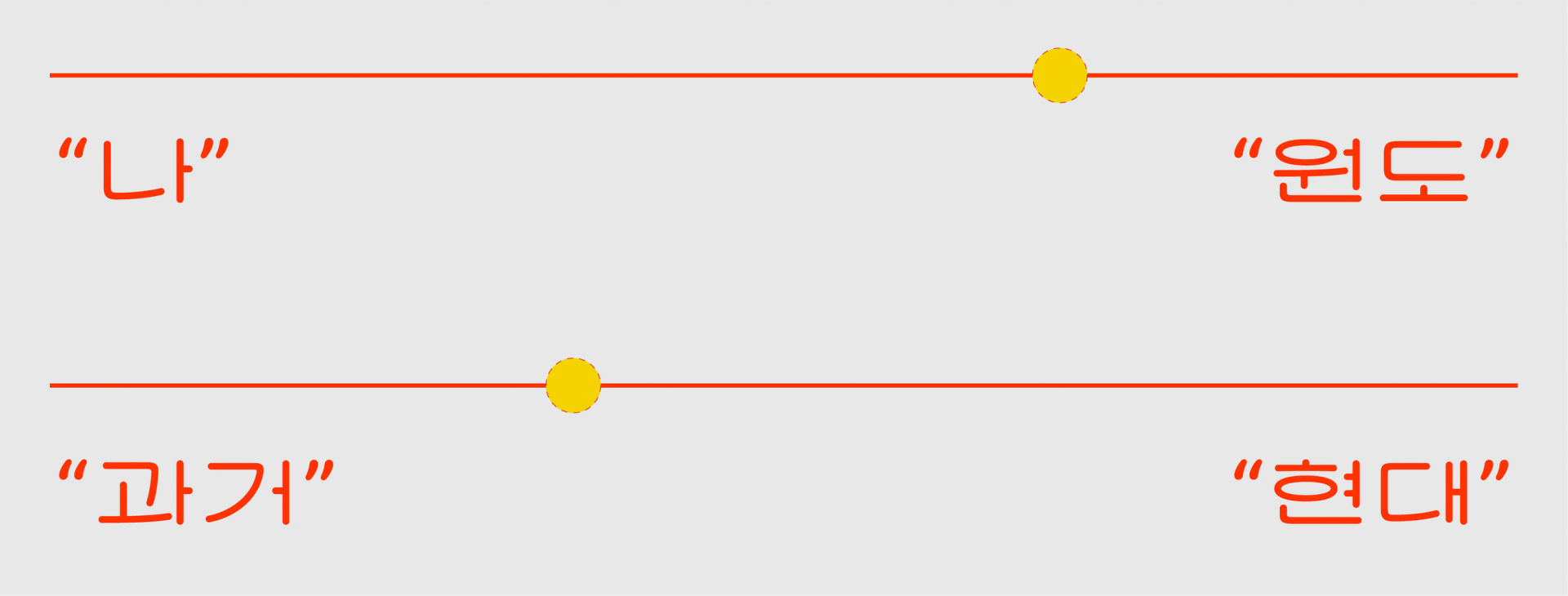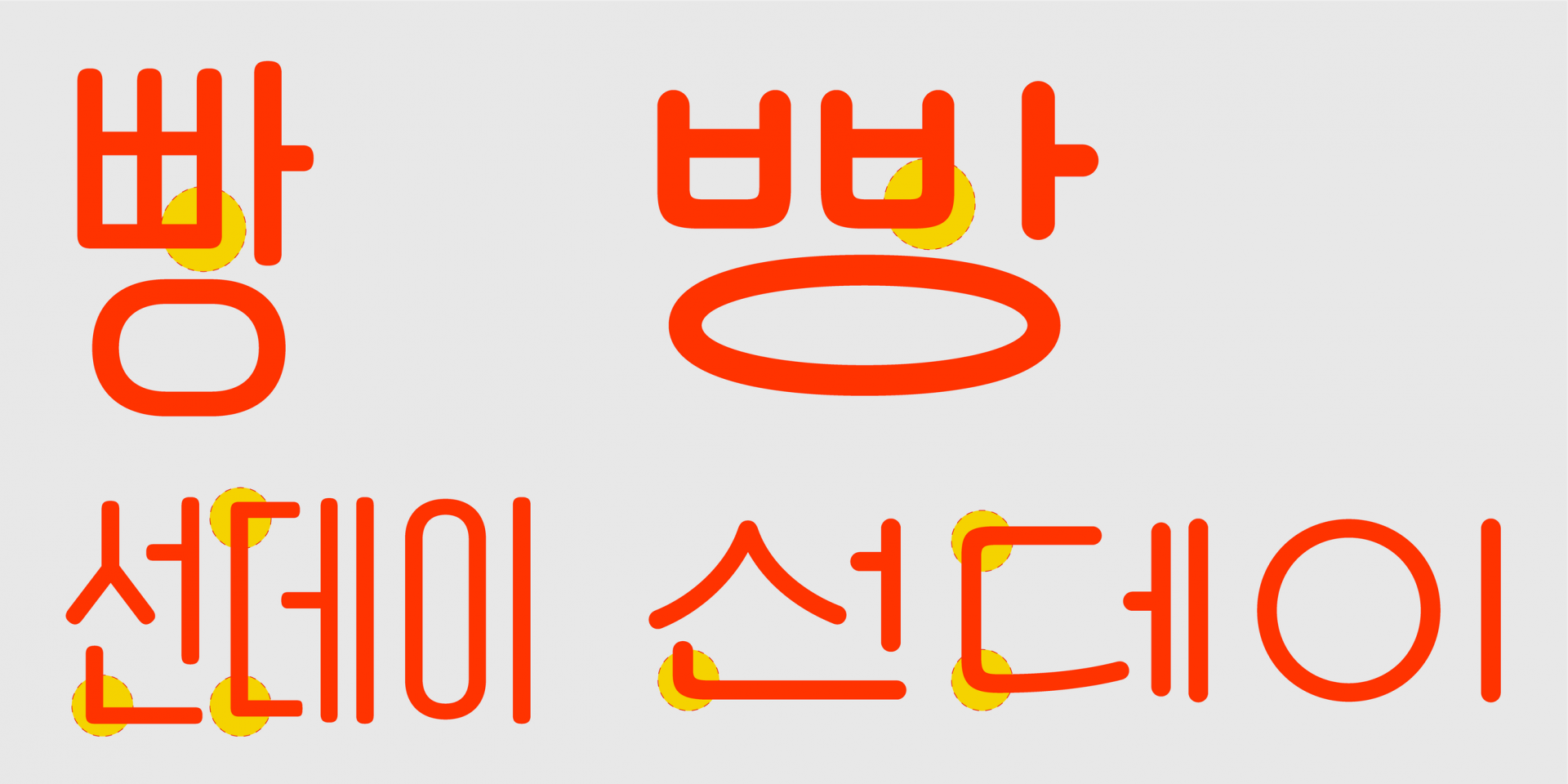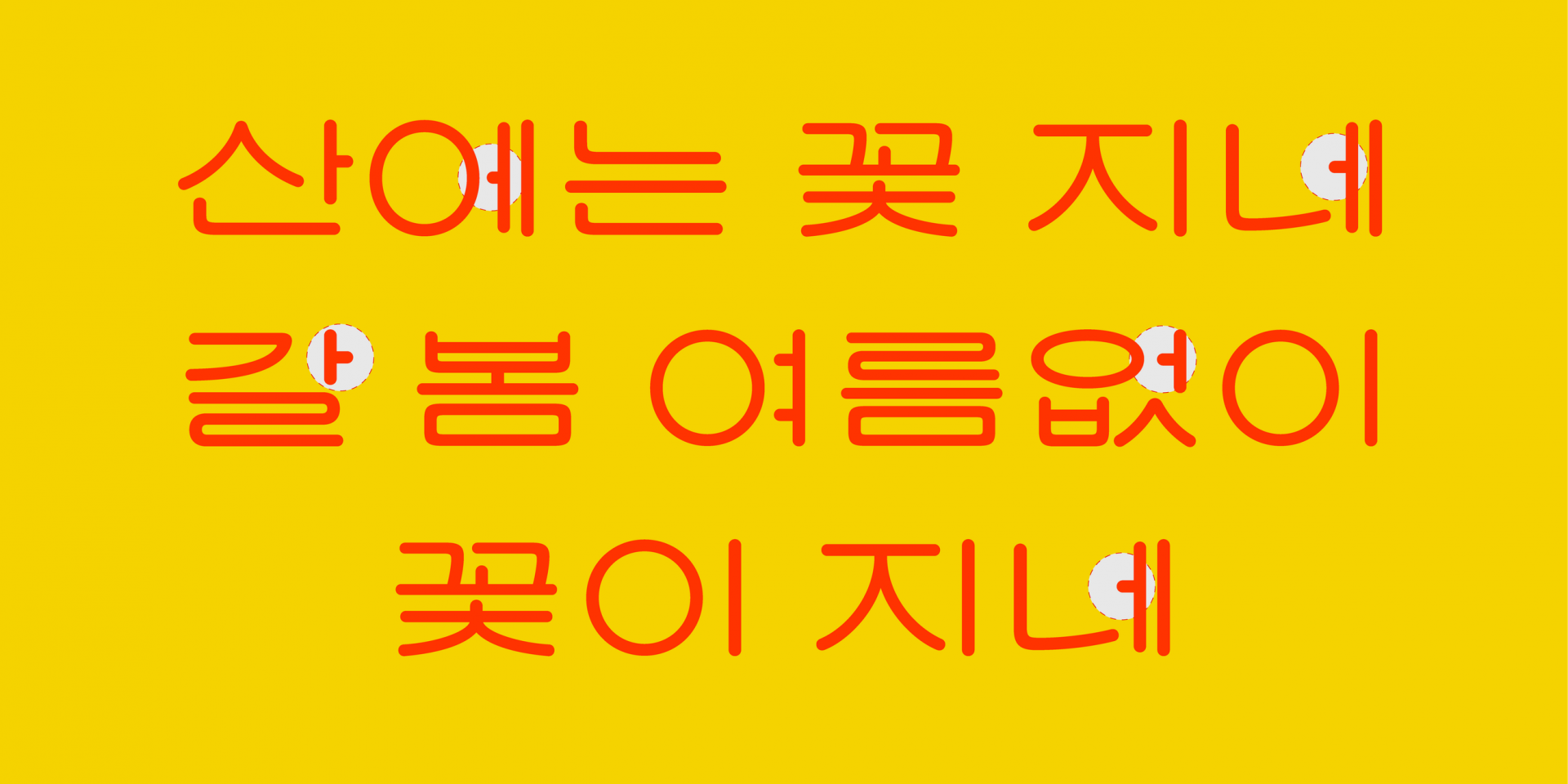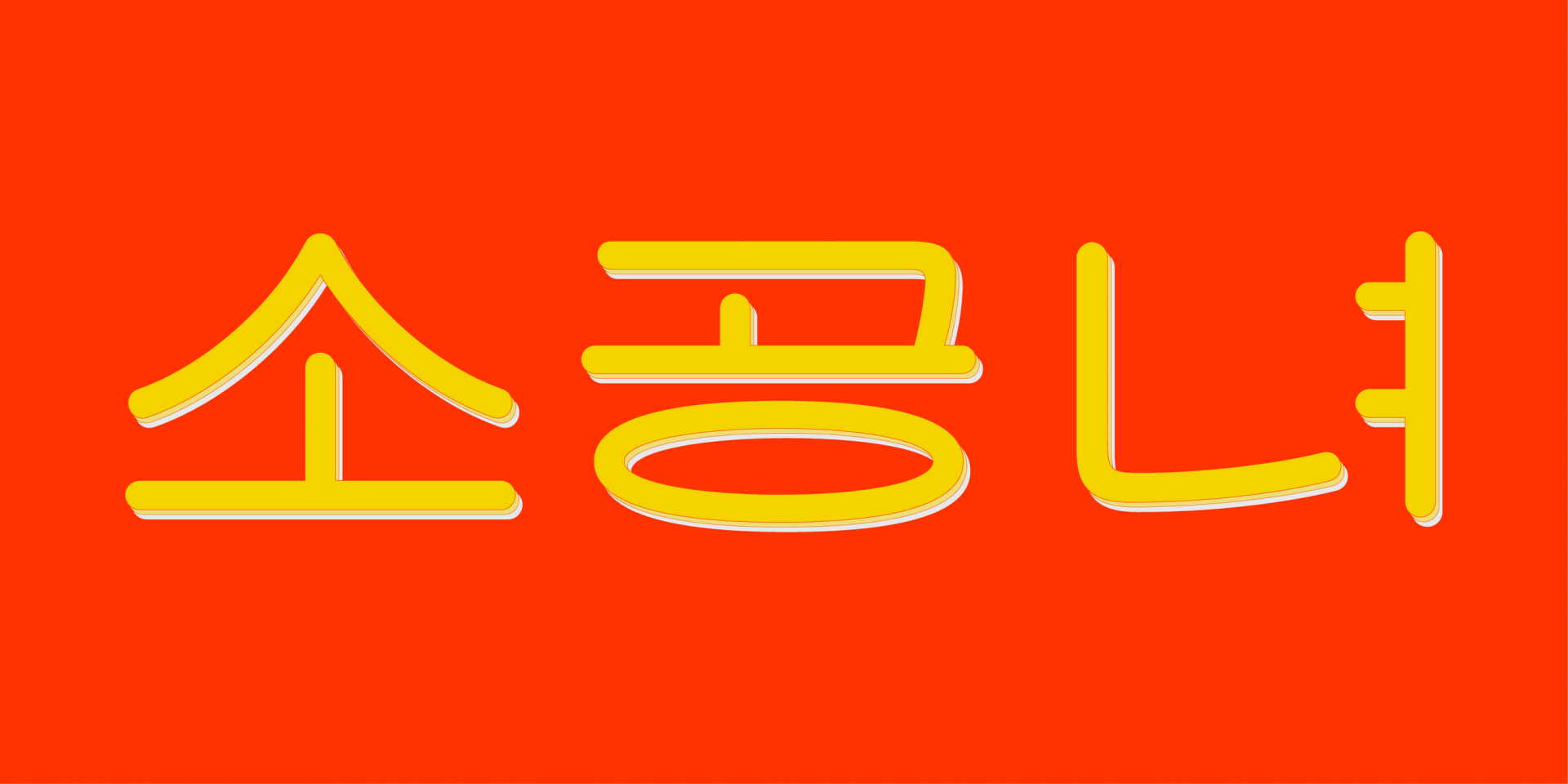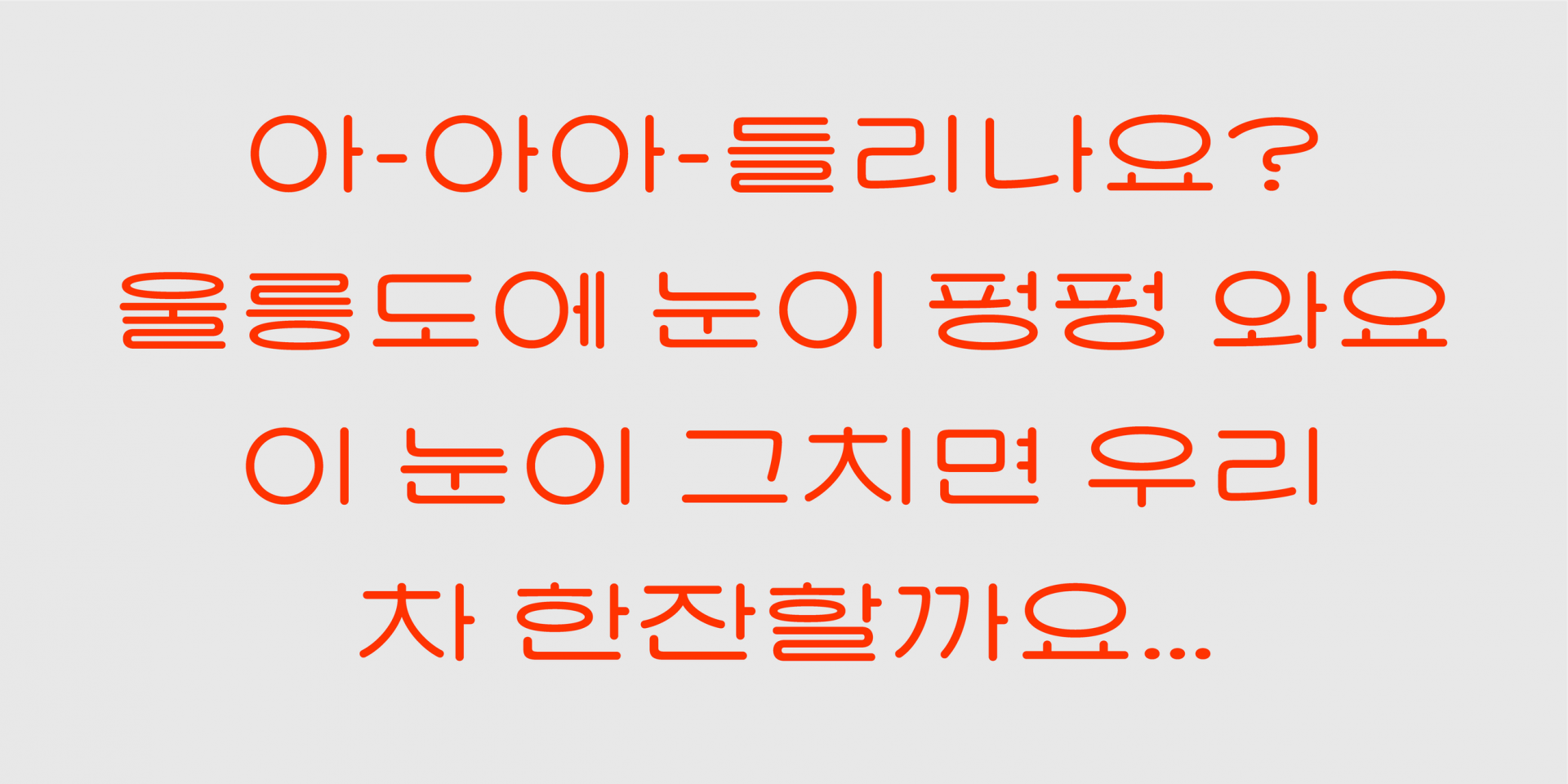
The mindset when encountering something new or unfamiliar
1. A new taste
I enjoy watching cooking survival programs. When you watch them, judges sometimes make comments like this: “It’s a flavor I’ve never experienced before.” Then, after a brief second of silence: “But it’s fresh and innovative.” Or, “Something is wrong. This is the worst dish of my life.”
With such short evaluations, a chef’s fate is decided in an instant. Watching these repeated scenes, I always find myself wondering how one can immediately judge whether something never experienced before is good or bad. Given the nature of survival programs, it is only natural that judges give their assessments right after tasting. Still, it feels somewhat harsh. And is it not more likely that unfamiliar things are received negatively?
Yet I catch myself speaking like those judges at times—when I first encounter a font or lettering. In that moment, it genuinely feels strange and unappealing. But after some time has passed, when I look at it again, it suddenly appears truly new and attractive. This tends to happen often when I encounter a style of creative work I have never seen before. For me, the lettering from past eras that I encountered while working on this project was exactly that.
2. New old things
Old things are new. It may sound strange, but not in the sense of an “old future”—they are genuinely new. We receive signs and advertising images that were considered ordinary in their time with a fresh sensibility today. Our way of engaging with past culture is clearly different from that of those who lived in that era. That is why I believe retro-themed works created today inevitably reflect the diverse sensibilities of contemporary creators. Below are a few unfamiliar letterforms from past eras.
2-1) Early grotesque
The early grotesque* sans-serif typefaces below look quite different from the neo-grotesque** style 「Helvetica」 that we commonly use today, do they not?
(Above) 1898, 「Gothic No 125」 / (Below) 1957, 「Helvetica」
*Grotesque: A category referring to early sans-serif typefaces that emerged and were used in the 19th century. As a transitional period shifting from serif to sans-serif, traces of serif characteristics remain. Typical examples include Grotesque MT and Franklin Gothic.
**Neo-Grotesque: A group of refined sans-serif fonts that emerged around the mid-20th century, developed based on early grotesque sans-serif styles, such as Helvetica and Univers.
2-2) Fresh and appealing lettering from the 1900s
3.The relationship between retro and 「SD Cohhee」
Art Nouveau–style type from an 1892 specimen book by “Central Type Foundry and Boston Type Foundry”
Art Deco and psychedelic–style type from a 1962 specimen book by “Typefounders of Chicago”
Are you familiar with the many styles that once defined entire eras, such as Art Deco, Futurism, psychedelic, and Y2K? Even today, many creators long for past styles and enjoy recreating them in their work.
「SD Cohhee」 also wanted to become a useful material for such work. At the same time, it aimed to carry on the retro concepts of Sandoll’s representative best-selling fonts—「Sandoll Gyeokdong Gothic」, 「Sandoll Cheongryu」, and 「Sandoll Rotary」—while expressing a different sensibility from those earlier fonts. The name 「SD Cohhee」 itself was inspired by narration in retro advertisements. The way copy was drawn out slowly and nostalgically felt characteristic of that era. I wrote down the sound of the word “coffee” as it was stretched out and spoken slowly. Its horizontally wide, flat proportion also fits this idea well. Perhaps drinking a lot of coffee during production played a role too.
The era 「SD Cohhee」 chose is the 1950s–1960s. It was created by reinterpreting lettering originals from that time. I hoped viewers might think, “Ah, this feels nostalgic,” but I intentionally avoided reproducing any specific lettering original so precisely that it would immediately come to mind. At the concept stage, I selected several lettering originals as motifs, then decided which elements to adopt and which to discard.
The criterion for these choices was always the blank in the sentence: “I hope users feel ◌◌ when they see this font.” I attached and removed various interesting elements, emphasizing some while leaving others only as traces. Through this process of customization toward the impression I wanted, the degree of reinterpretation naturally took shape. The ratio of old and new that I subjectively aimed for is as follows.
4. The ‘◌◌’ of 「SD Cohhee」
I imagine 「SD Cohhee」 as if it had time-leaped from the 1950s–1960s to 2023. How would it face the world? I sometimes indulge in such fantasies. I hope it is lovable, endearingly awkward, and kind to living things. At the same time, it still feels more comfortable using quirky words like “ice popsicle” or “super market.” Below are a few parts where the original lettering and I worked in harmony to best express this ‘◌◌’.
5. The original and me: restoration and reinterpretation
5-1) Rounded corners
「SD Cohhee」 is a rounded-style font with softened stroke ends and corners. In particular, curvature was applied to both the inner and outer lines of character corners. Take 「Sandoll Gogo」, another rounded-style font. Only the outer corners are rounded, while the inner corners remain straight, keeping the narrow and complex inner spaces clean.
「Sandoll Gogo cond」 and 「SD Cohhee」
「SD Cohhee」, however, applies rounding to both inside and outside corners—without exception, even on the tiny corners of the double consonant in ‘빵.’ As curves increase within each character, the soft and friendly impression of 「Keuohi」 becomes more pronounced on the page. Do these generously curved forms not remind you of vinyl lettering on old laundromat windows or bakery signs?
5-2) Short side strokes and tall short stems
It is always a point of consideration. When developing Hangul, the question is how long the side strokes and short stems should be.
Of course, this varies depending on the characteristics of the font. 「SD Cohhee」 is characterized by generous horizontal spacing between the initial and medial consonants, contrasted with notably short side strokes. Compared to conventional sans-serif Hangul fonts, its side strokes feel almost as if they stop midway.
They were set as short as possible while still allowing characters to remain recognizable at standard sizes.
Why? Because I judged this to be one of the elements in the original lettering that made the characters look exceptionally cute. If this rule is applied consistently to vertical structures, then the short stem in characters like ‘고’ must also be short.
Image Source: “National Folk Museum of Korea”
However, as seen above, even when older lettering uses generous horizontal spacing, this rule does not necessarily carry over to vertical spacing. The distance between short stems and the initial–medial area is extremely tight. I adopted this as another defining characteristic of 「SD Cohhee」.
Within a single character, two rules coexist harmoniously: generous horizontal spacing and compact vertical spacing. Can you see the contrast when viewing the two stems together? Is this gap not intriguing, like a child darting back and forth between cold and hot baths?
5-3) The puffed ‘ㅇ’
This is my favorite element from the original. The ‘ㅇ’ that opens its mouth wide like puffed rice snacks.
When typeset in sentences, the bold, open ‘ㅇ’ immediately catches the eye. It almost seems to shout, “Look at me!”—which could feel a bit burdensome—but combined with the other traits of 「SD Cohhee」, it works surprisingly well. ‘ㅇ’ is one of the most frequently used consonants. Perhaps for that reason, when examining lettering originals, I often felt that consistency in the curvature of ‘ㅇ’ across different forms was particularly low. Some versions have sharp corners on both sides, with inverted stroke thickness between horizontal and vertical lines, and awkward transitions. Others show slightly varying thicknesses.
「SD Cohhee」 reflects this by adopting a more dynamic rule for ‘ㅇ’ within the font. When occupying a large space, it becomes a full, moon-like circle; in smaller spaces, it flattens into a UFO-like oval. While maintaining this rule, I worked to achieve natural curvature in each context.
5-4) Latin letters not present in the original
The original lettering contained only Hangul, so designing Latin characters required more imagination. The way Hangul and Latin are combined within a font varies depending on the design direction. 「SD Cohhee」 chose to align Latin characters so that, even if their inner spaces are larger, their physical width closely matches that of Hangul. I felt this better preserved Hangul’s retro impression while maintaining consistent flat proportions overall. Except for i, j, and l, characters share a width similar to n, like a cute monospace font. If i, j, and l had also been kept wide, the typesetting would have felt too uniform and monotonous, so they were used as a slight irregular element.
Because of this, the Latin characters of 「SD Cohhee」 reveal their charm especially well when used at large sizes alongside Hangul.
5-5) 「SD Cohhee」 in a strange land
In multiple feedback sessions and work-sharing meetings, I often described 「SD Cohhee」 as “ugly” or “awkward.” Of course, this was the same tone as affectionately saying, “Wow, you’re really ugly,” to a chubby cat yawning. Still, I wonder if I should have searched for a more appropriate word.
Looking back, why did I choose those expressions? Perhaps because it felt like a new form that fell outside the category of the “ordinary,” leading me to use such vocabulary instinctively. I also think that, in that era, rules for Hangul type design were not yet widely standardized.
Of course, in Hangul lettering, it is possible to intentionally break rules—by ignoring consistency or applying extreme stroke contrast. But in lettering from that era, one often encounters forms that disregard rules considered fundamental in modern Hangul type design, resulting in very unfamiliar shapes. Yet, once I began the project, I realized that these forms must have felt entirely natural to users of that time. It would be wrong to simply label them, from today’s perspective, as unfinished, lacking, or crude.
With its stubby side strokes, tall short stems, dough-like ‘ㅇ,’ and inconsistent ‘ㄹ,’ 「SD Cohhee」.
I hope it remains a font that may feel unfamiliar to some, yet still endearing.
[spoiler] It might come back with a thick weight, going “ta-da”…
Insight ∙Original Font
The mindset when encountering something new or unfamiliar
1. A new taste
I enjoy watching cooking survival programs. When you watch them, judges sometimes make comments like this: “It’s a flavor I’ve never experienced before.” Then, after a brief second of silence: “But it’s fresh and innovative.” Or, “Something is wrong. This is the worst dish of my life.”
With such short evaluations, a chef’s fate is decided in an instant. Watching these repeated scenes, I always find myself wondering how one can immediately judge whether something never experienced before is good or bad. Given the nature of survival programs, it is only natural that judges give their assessments right after tasting. Still, it feels somewhat harsh. And is it not more likely that unfamiliar things are received negatively?
Yet I catch myself speaking like those judges at times—when I first encounter a font or lettering. In that moment, it genuinely feels strange and unappealing. But after some time has passed, when I look at it again, it suddenly appears truly new and attractive. This tends to happen often when I encounter a style of creative work I have never seen before. For me, the lettering from past eras that I encountered while working on this project was exactly that.
2. New old things
Old things are new. It may sound strange, but not in the sense of an “old future”—they are genuinely new. We receive signs and advertising images that were considered ordinary in their time with a fresh sensibility today. Our way of engaging with past culture is clearly different from that of those who lived in that era. That is why I believe retro-themed works created today inevitably reflect the diverse sensibilities of contemporary creators. Below are a few unfamiliar letterforms from past eras.
2-1) Early grotesque
The early grotesque* sans-serif typefaces below look quite different from the neo-grotesque** style 「Helvetica」 that we commonly use today, do they not?
(Above) 1898, 「Gothic No 125」 / (Below) 1957, 「Helvetica」
*Grotesque: A category referring to early sans-serif typefaces that emerged and were used in the 19th century. As a transitional period shifting from serif to sans-serif, traces of serif characteristics remain. Typical examples include Grotesque MT and Franklin Gothic.
**Neo-Grotesque: A group of refined sans-serif fonts that emerged around the mid-20th century, developed based on early grotesque sans-serif styles, such as Helvetica and Univers.
Reference: Kim Hyun-mi, A Study on a New Classification System for Roman Typefaces – Focusing on the Vox-ATypI Classification, 2014, p.97
2-2) Fresh and appealing lettering from the 1900s
Source: “National Folk Museum of Korea”
3.The relationship between retro and 「SD Cohhee」
Are you familiar with the many styles that once defined entire eras, such as Art Deco, Futurism, psychedelic, and Y2K? Even today, many creators long for past styles and enjoy recreating them in their work.
「SD Cohhee」 also wanted to become a useful material for such work. At the same time, it aimed to carry on the retro concepts of Sandoll’s representative best-selling fonts—「Sandoll Gyeokdong Gothic」, 「Sandoll Cheongryu」, and 「Sandoll Rotary」—while expressing a different sensibility from those earlier fonts. The name 「SD Cohhee」 itself was inspired by narration in retro advertisements. The way copy was drawn out slowly and nostalgically felt characteristic of that era. I wrote down the sound of the word “coffee” as it was stretched out and spoken slowly. Its horizontally wide, flat proportion also fits this idea well. Perhaps drinking a lot of coffee during production played a role too.
The era 「SD Cohhee」 chose is the 1950s–1960s. It was created by reinterpreting lettering originals from that time. I hoped viewers might think, “Ah, this feels nostalgic,” but I intentionally avoided reproducing any specific lettering original so precisely that it would immediately come to mind. At the concept stage, I selected several lettering originals as motifs, then decided which elements to adopt and which to discard.
The criterion for these choices was always the blank in the sentence: “I hope users feel ◌◌ when they see this font.” I attached and removed various interesting elements, emphasizing some while leaving others only as traces. Through this process of customization toward the impression I wanted, the degree of reinterpretation naturally took shape. The ratio of old and new that I subjectively aimed for is as follows.
4. The ‘◌◌’ of 「SD Cohhee」
I imagine 「SD Cohhee」 as if it had time-leaped from the 1950s–1960s to 2023. How would it face the world? I sometimes indulge in such fantasies. I hope it is lovable, endearingly awkward, and kind to living things. At the same time, it still feels more comfortable using quirky words like “ice popsicle” or “super market.” Below are a few parts where the original lettering and I worked in harmony to best express this ‘◌◌’.
5. The original and me: restoration and reinterpretation
5-1) Rounded corners
「SD Cohhee」 is a rounded-style font with softened stroke ends and corners. In particular, curvature was applied to both the inner and outer lines of character corners. Take 「Sandoll Gogo」, another rounded-style font. Only the outer corners are rounded, while the inner corners remain straight, keeping the narrow and complex inner spaces clean.
「Sandoll Gogo cond」 and 「SD Cohhee」
「SD Cohhee」, however, applies rounding to both inside and outside corners—without exception, even on the tiny corners of the double consonant in ‘빵.’ As curves increase within each character, the soft and friendly impression of 「Keuohi」 becomes more pronounced on the page. Do these generously curved forms not remind you of vinyl lettering on old laundromat windows or bakery signs?
5-2) Short side strokes and tall short stems
It is always a point of consideration. When developing Hangul, the question is how long the side strokes and short stems should be.
Of course, this varies depending on the characteristics of the font. 「SD Cohhee」 is characterized by generous horizontal spacing between the initial and medial consonants, contrasted with notably short side strokes. Compared to conventional sans-serif Hangul fonts, its side strokes feel almost as if they stop midway.
They were set as short as possible while still allowing characters to remain recognizable at standard sizes.
Why? Because I judged this to be one of the elements in the original lettering that made the characters look exceptionally cute. If this rule is applied consistently to vertical structures, then the short stem in characters like ‘고’ must also be short.
Image Source: “National Folk Museum of Korea”
However, as seen above, even when older lettering uses generous horizontal spacing, this rule does not necessarily carry over to vertical spacing. The distance between short stems and the initial–medial area is extremely tight. I adopted this as another defining characteristic of 「SD Cohhee」.
Within a single character, two rules coexist harmoniously: generous horizontal spacing and compact vertical spacing. Can you see the contrast when viewing the two stems together? Is this gap not intriguing, like a child darting back and forth between cold and hot baths?
5-3) The puffed ‘ㅇ’
This is my favorite element from the original. The ‘ㅇ’ that opens its mouth wide like puffed rice snacks.
When typeset in sentences, the bold, open ‘ㅇ’ immediately catches the eye. It almost seems to shout, “Look at me!”—which could feel a bit burdensome—but combined with the other traits of 「SD Cohhee」, it works surprisingly well. ‘ㅇ’ is one of the most frequently used consonants. Perhaps for that reason, when examining lettering originals, I often felt that consistency in the curvature of ‘ㅇ’ across different forms was particularly low. Some versions have sharp corners on both sides, with inverted stroke thickness between horizontal and vertical lines, and awkward transitions. Others show slightly varying thicknesses.
「SD Cohhee」 reflects this by adopting a more dynamic rule for ‘ㅇ’ within the font. When occupying a large space, it becomes a full, moon-like circle; in smaller spaces, it flattens into a UFO-like oval. While maintaining this rule, I worked to achieve natural curvature in each context.
5-4) Latin letters not present in the original
The original lettering contained only Hangul, so designing Latin characters required more imagination. The way Hangul and Latin are combined within a font varies depending on the design direction. 「SD Cohhee」 chose to align Latin characters so that, even if their inner spaces are larger, their physical width closely matches that of Hangul. I felt this better preserved Hangul’s retro impression while maintaining consistent flat proportions overall. Except for i, j, and l, characters share a width similar to n, like a cute monospace font. If i, j, and l had also been kept wide, the typesetting would have felt too uniform and monotonous, so they were used as a slight irregular element.
Because of this, the Latin characters of 「SD Cohhee」 reveal their charm especially well when used at large sizes alongside Hangul.
5-5) 「SD Cohhee」 in a strange land
In multiple feedback sessions and work-sharing meetings, I often described 「SD Cohhee」 as “ugly” or “awkward.” Of course, this was the same tone as affectionately saying, “Wow, you’re really ugly,” to a chubby cat yawning. Still, I wonder if I should have searched for a more appropriate word.
Looking back, why did I choose those expressions? Perhaps because it felt like a new form that fell outside the category of the “ordinary,” leading me to use such vocabulary instinctively. I also think that, in that era, rules for Hangul type design were not yet widely standardized.
Of course, in Hangul lettering, it is possible to intentionally break rules—by ignoring consistency or applying extreme stroke contrast. But in lettering from that era, one often encounters forms that disregard rules considered fundamental in modern Hangul type design, resulting in very unfamiliar shapes. Yet, once I began the project, I realized that these forms must have felt entirely natural to users of that time. It would be wrong to simply label them, from today’s perspective, as unfinished, lacking, or crude.
With its stubby side strokes, tall short stems, dough-like ‘ㅇ,’ and inconsistent ‘ㄹ,’ 「SD Cohhee」.
I hope it remains a font that may feel unfamiliar to some, yet still endearing.
[spoiler] It might come back with a thick weight, going “ta-da”…